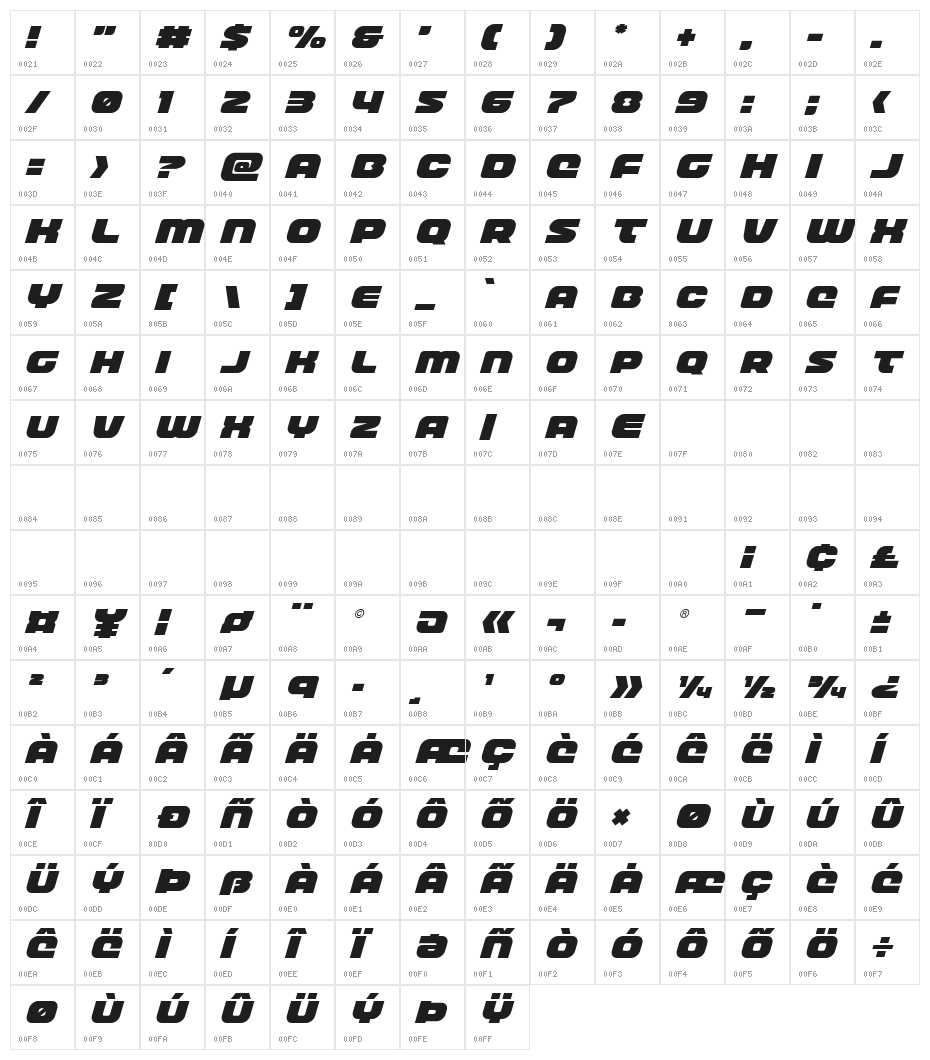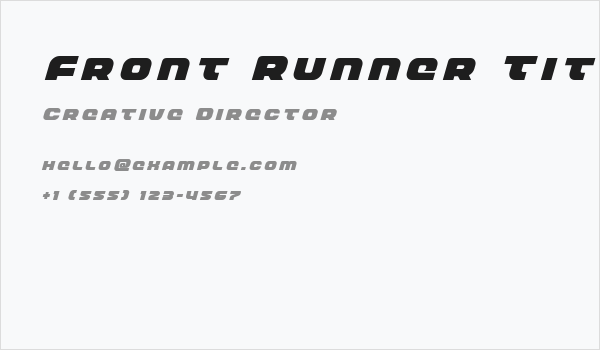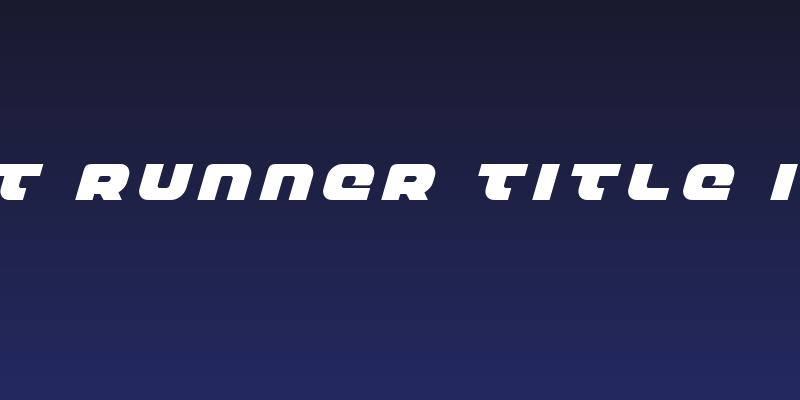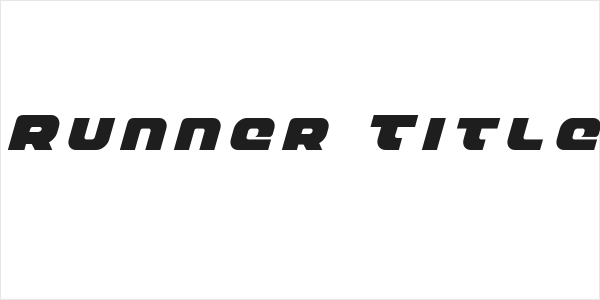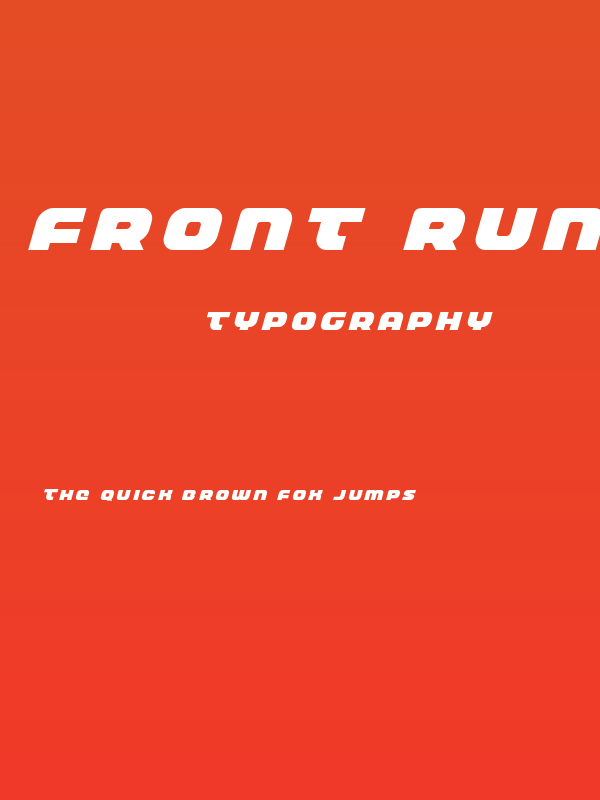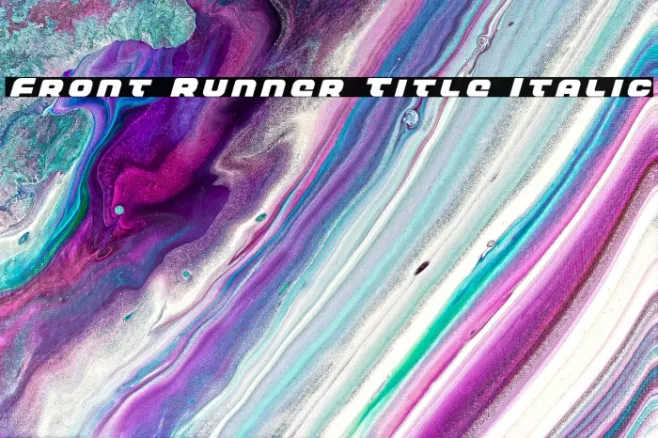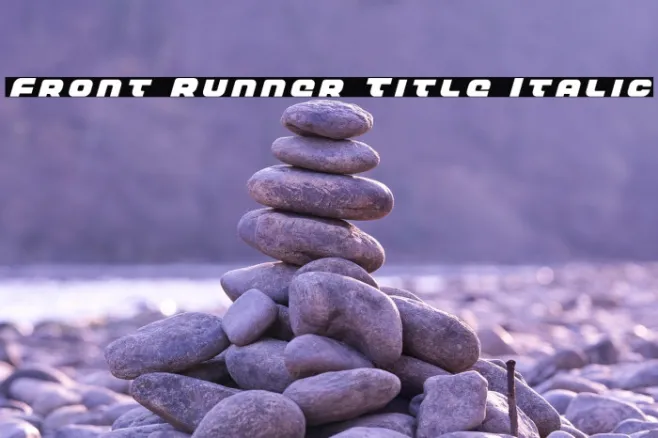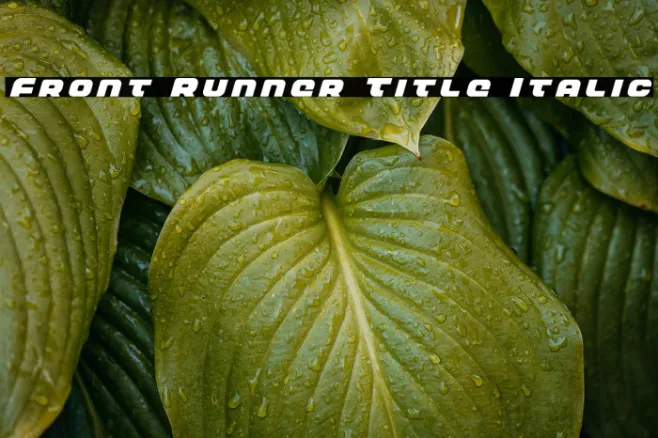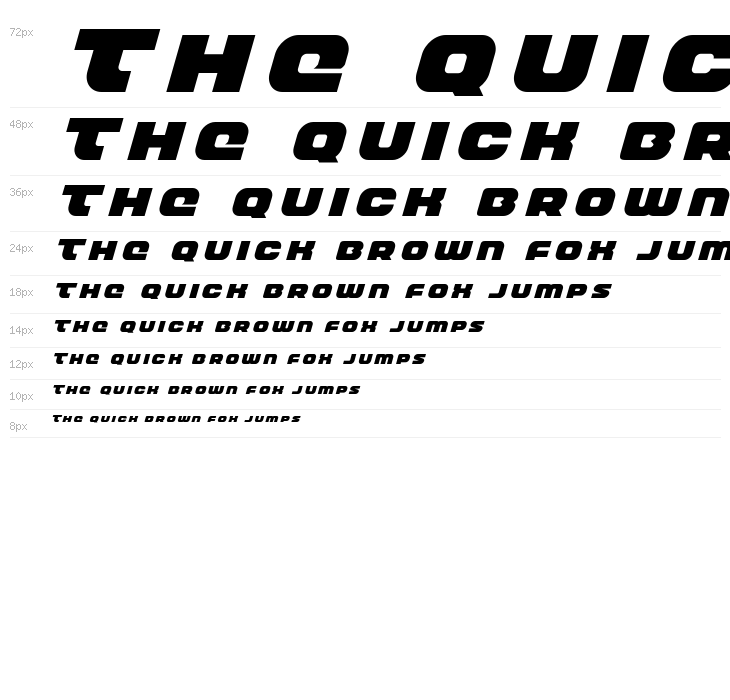
Front Runner Title Italic Font
Front Runner Title Italic Description
This font features a bold and dynamic style with a distinctly modern flair. The characters are italicized, giving them a sense of motion and energy. Each letter is crafted with a thick stroke, providing a strong visual impact. The rounded edges and slightly condensed form contribute to its contemporary look, making it suitable for attention-grabbing designs. The numbers and special characters maintain the same boldness and style, ensuring consistency across all elements. This font is ideal for projects that require a strong, modern, and energetic typeface.